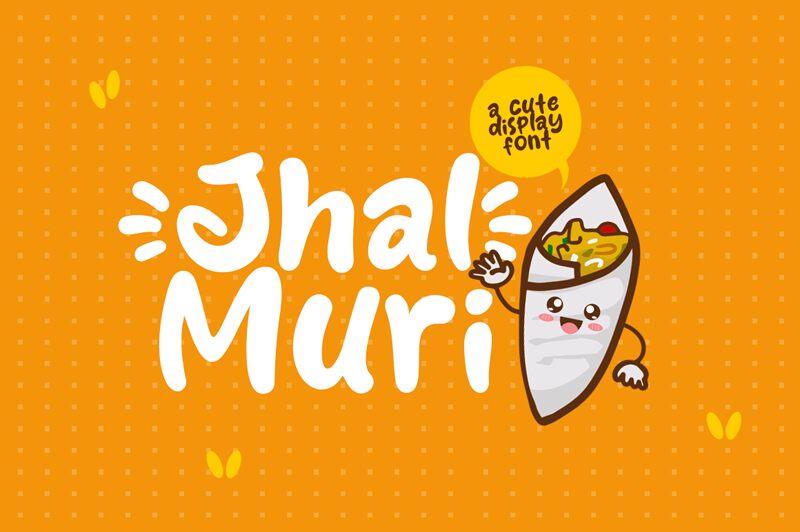
Jhal Muri
Jhal Muri is a playful and whimsical display font that exudes a delightful sense of childlike charm. Designed by Khurasan, this cartoon-inspired typeface boasts rounded, organic letterforms that evoke the casual, handwritten aesthetic of a childhood doodle.
The irregular, almost haphazard strokes and quirky ligatures lend the font a memorable personality, making it well-suited for a variety of creative applications, from children's storybooks and greeting cards to packaging designs and social media branding.
Its distinctive style captures the spirit of playfulness and imagination, making Jhal Muri an engaging choice for projects that aim to connect with a youthful audience or convey a lighthearted, approachable tone.